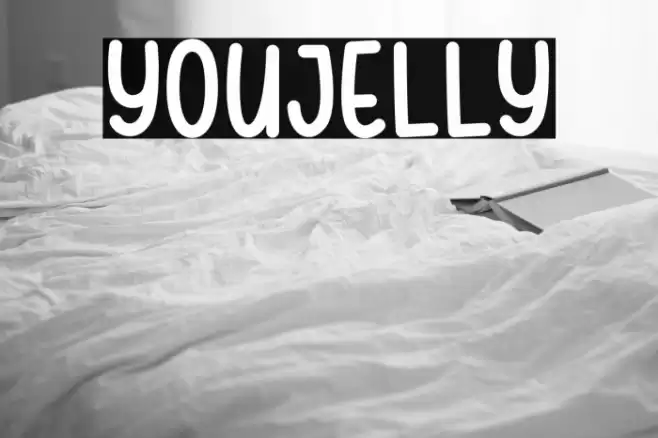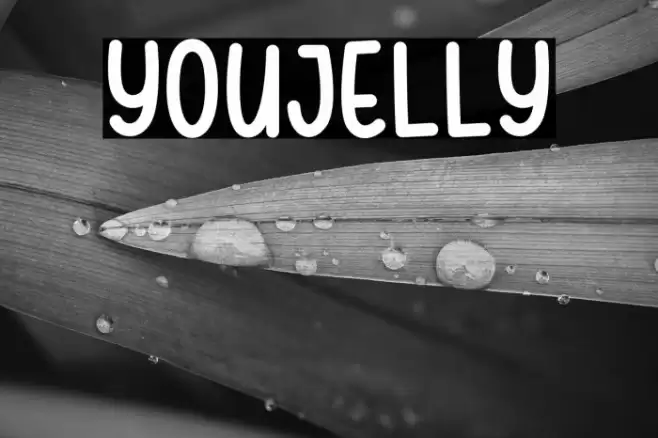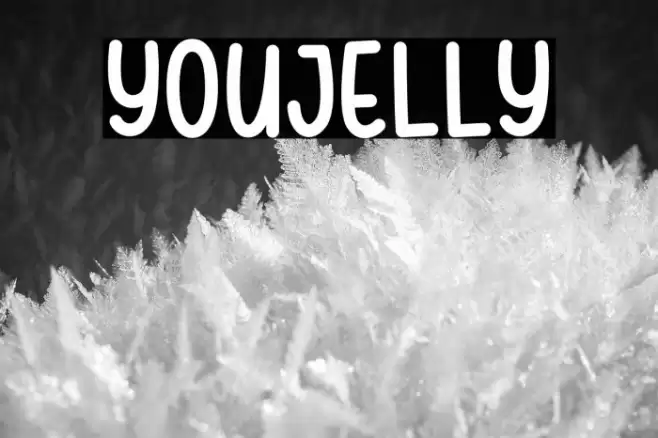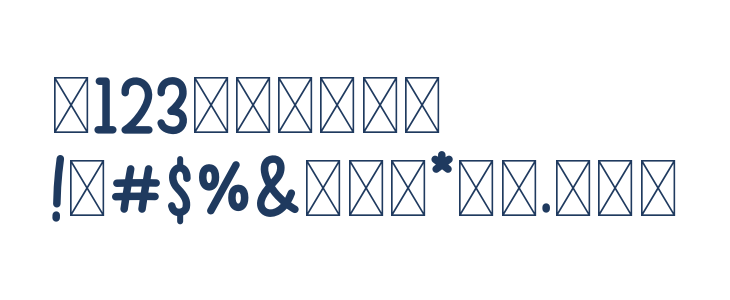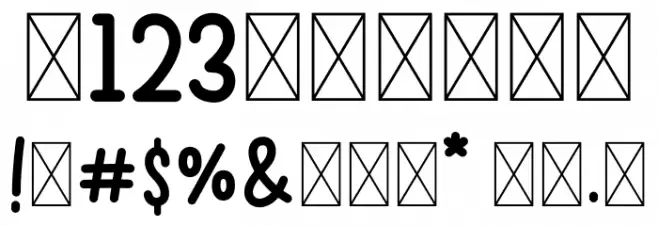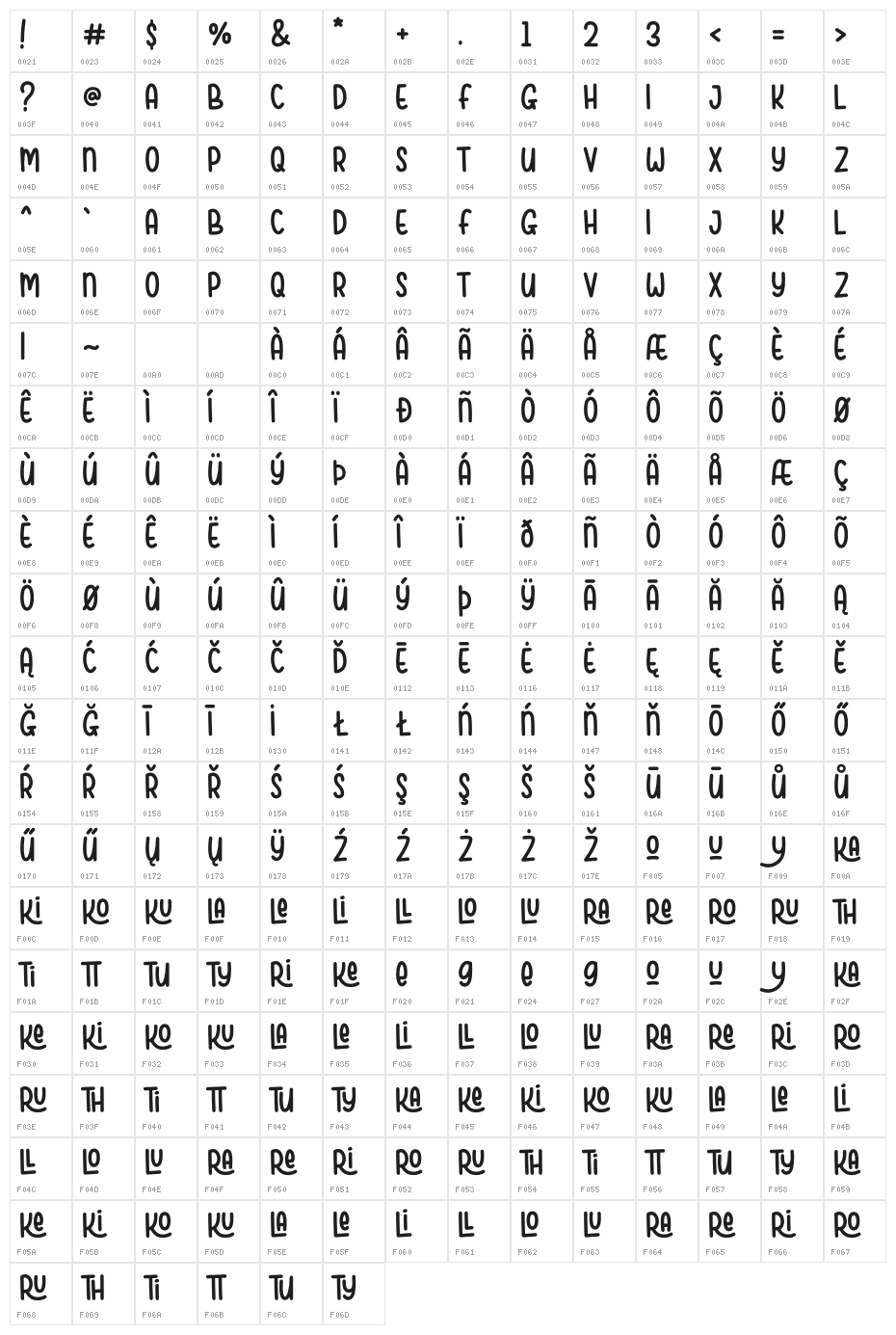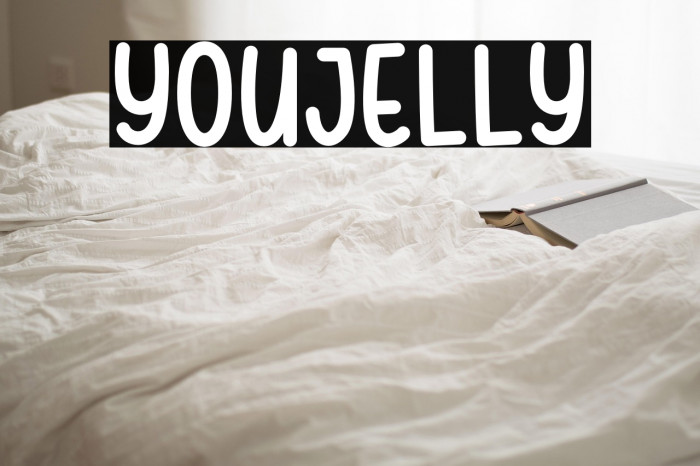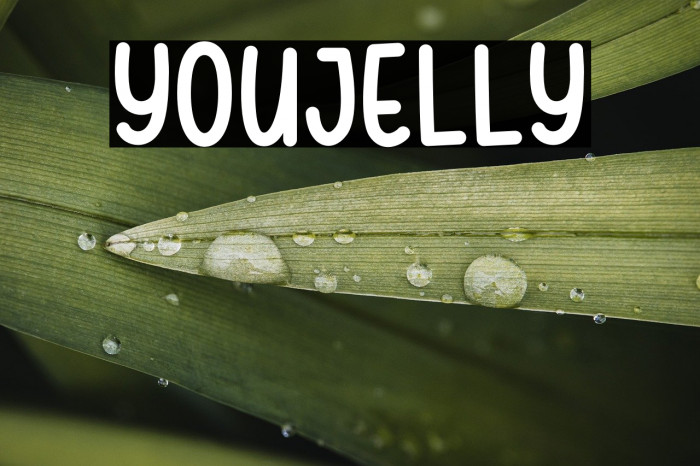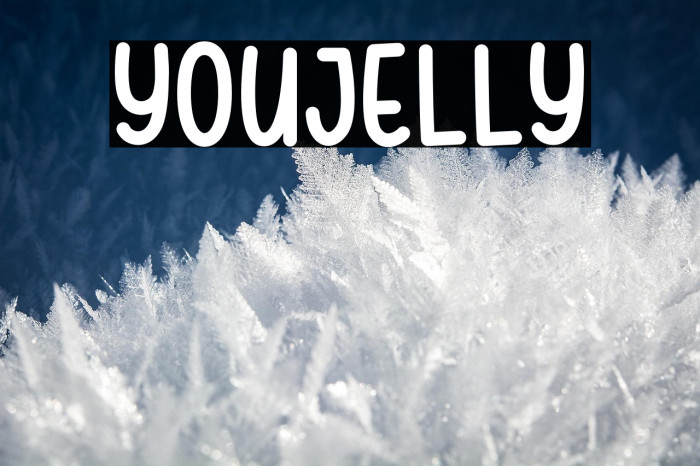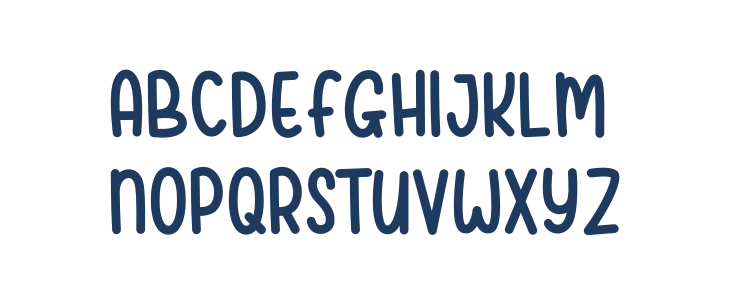
Youjelly Font
Youjelly Description
This playful and bold font features rounded edges and a casual, handwritten style that exudes a sense of fun and approachability. The letters are uniformly thick, giving it a consistent and cohesive look. The uppercase and lowercase letters maintain a friendly and informal appearance, making it ideal for projects that require a touch of whimsy. The numbers and special characters follow the same design principles, ensuring a harmonious overall aesthetic. Its simplicity and readability make it versatile for various design applications.
A playful, bold, and rounded handwritten font with a casual style from Regular fonts.
- Proposed Projects: Ideal for children's books, playful branding, greeting cards, and social media graphics.
- Overall Style: Playful